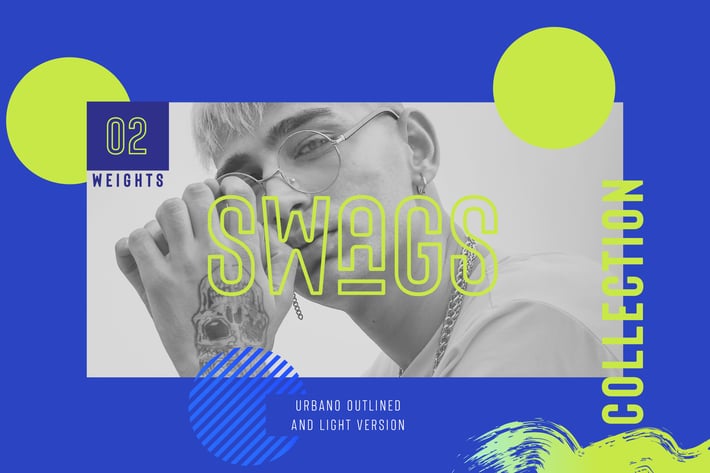
URBANO SWAGS Outlined Bold header Typeface
Introducing Urbano Swag Outlined Version - a powerful sans serif font family made to be a perfect choice for titles and headlines. It works very well for posters especially for magazine or print but it's versatile enough to be a good fit for a multitude of projects as well as for logos or other graphics that require strong and impactful typography.
FEATURES:
+ 2 Weights font
+ All caps
+ Stylistic Alternates & Ligatures
+ Numerals & Punctuation
+ Multiple Languages Supported